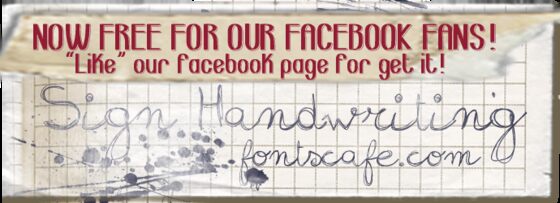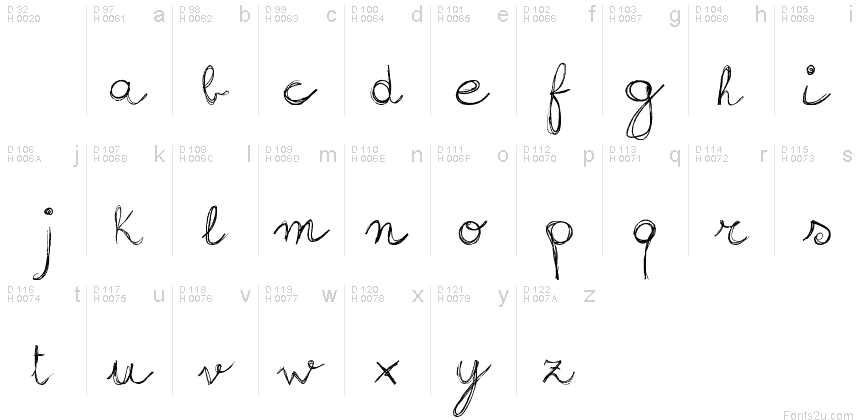
Sign Handwriting is a free rough handwritten script with long, looping strokes and a restless baseline. Its thin lines shift abruptly into dark overlaps, giving the letters the look of an urgent ink signature.
DIY and punk graphics are a natural setting for its raw autograph style, especially on indie music artwork and event posters. Fashion branding and merchandise can use the same quickly scrawled immediacy. The irregular loops tie those applications to underground culture and personal mark-making.